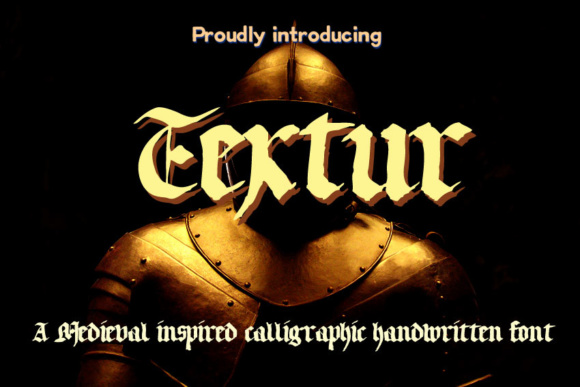
Are you craving a font that oozes tenebrosity, medieval mystique, and a sprinkle of whimsy? Textur, a captivating blackletter font, awaits your artistic exploration, ready to cast a spellbinding charm over your creative projects.
Immerse yourself in the allure of Textur, a font brimming with historical charm. Its upright stature exudes a regal aura, reminiscent of ancient manuscripts, conjuring images of knights, dragons, and enchanted forests. Unleash your imagination and let Textur transport you to a realm of typography enchantment.
With its intricate glyphs and sweeping flourishes, Textur possesses an undeniable presence that commands attention. Its ornate details, reminiscent of the works of scribes from centuries past, add depth and texture to your designs. Allow Textur to elevate your words, whether crafting logos, posters, invitations, or social media graphics.
Whether you're a graphic designer seeking a unique font for your projects or a creative individual looking to add a touch of medieval flair to your personal designs, Textur is your perfect companion. Its versatility extends to a wide range of applications, from Halloween posters evoking spine-tingling tales to invitations exuding timeless elegance.
But Textur's magic isn't limited to the digital realm. Unleash its potential in tangible creations as well. Embark on a journey of crafting personalized mugs, T-shirts, and home décor items adorned with Textur's enchanting letters. Let your imagination run wild as you transform ordinary objects into extraordinary works of art.
Welcome Textur into your creative arsenal, and prepare to witness your projects take on an ethereal, timeless beauty. Its timeless charm and versatility make it the ultimate choice for those seeking a font that captivates hearts and sparks creativity.
Embrace Textur, the font that whispers tales of old, and embark on a journey where words and art harmoniously intertwine. Let your creativity flourish, knowing that with Textur by your side, the possibilities are as boundless as your imagination.